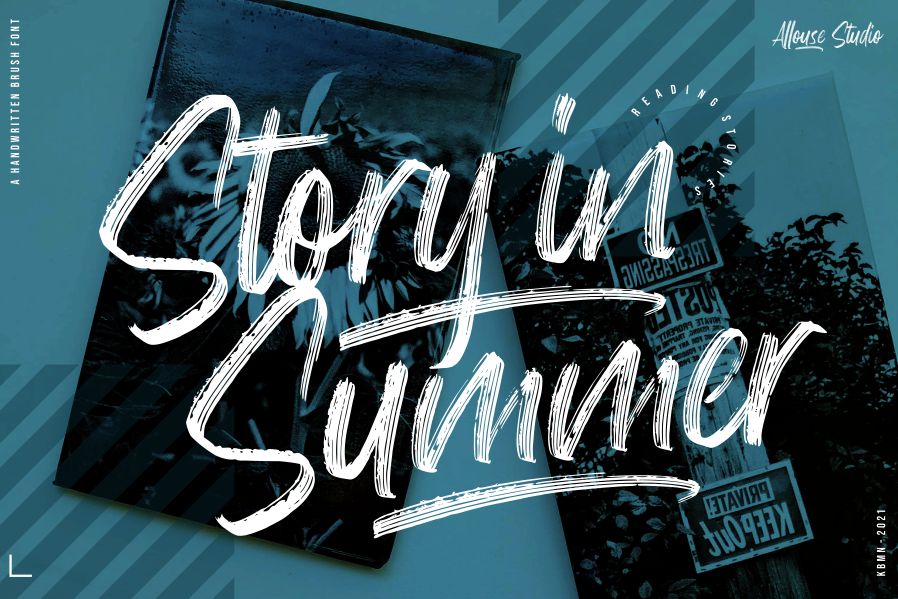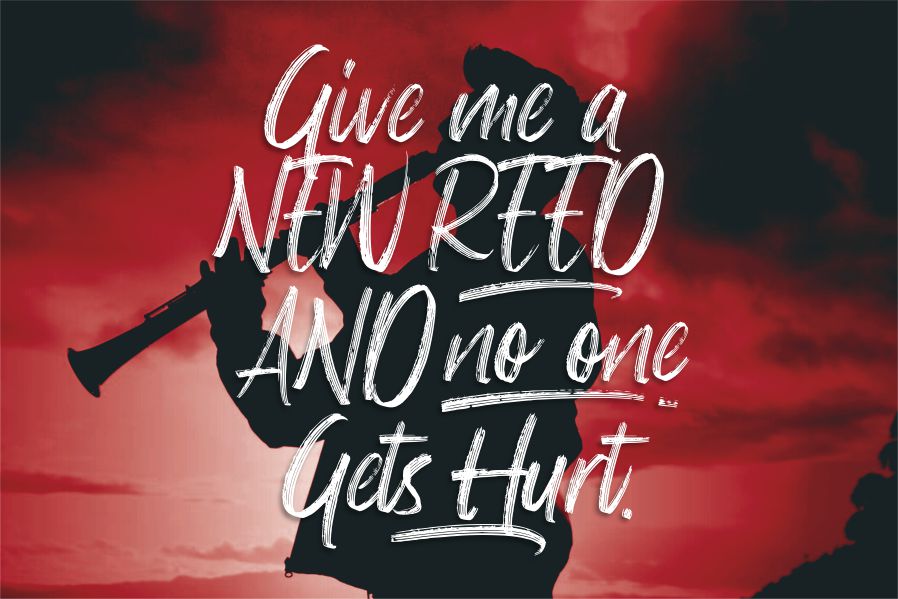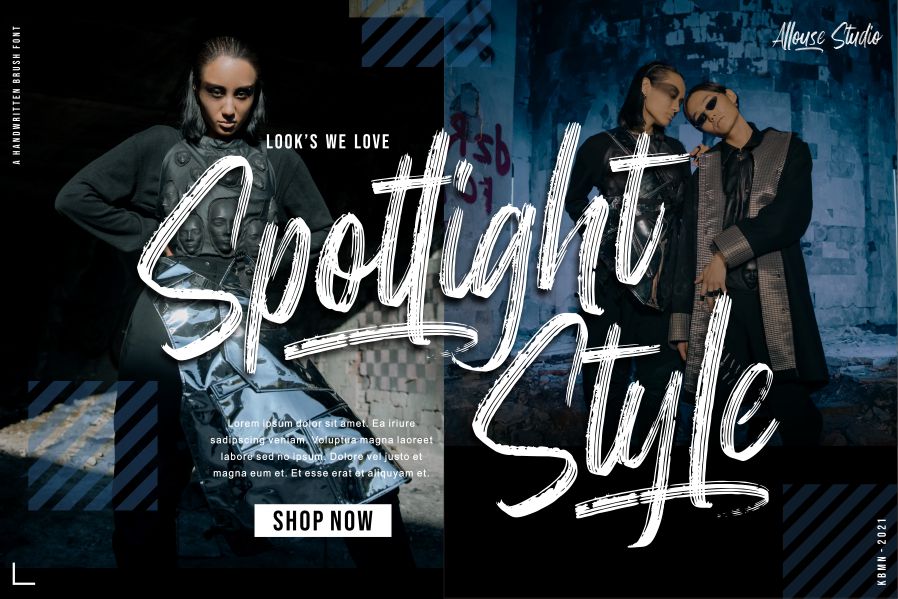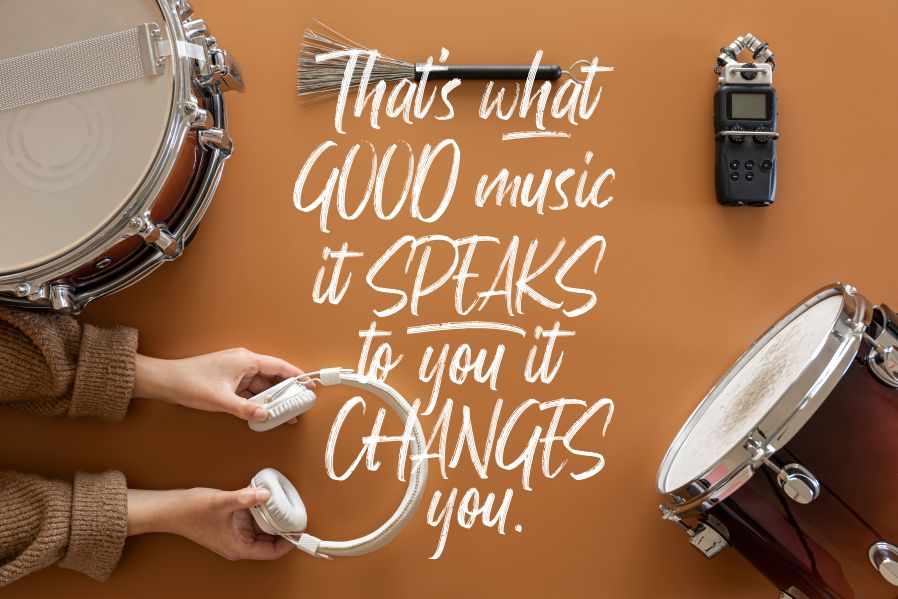
Highfilm Brush Font
It’s a lovely script font featuring brushed characters that seem to dance along the baseline. Add this font to your most creative ideas, and notice how it makes them stand out!